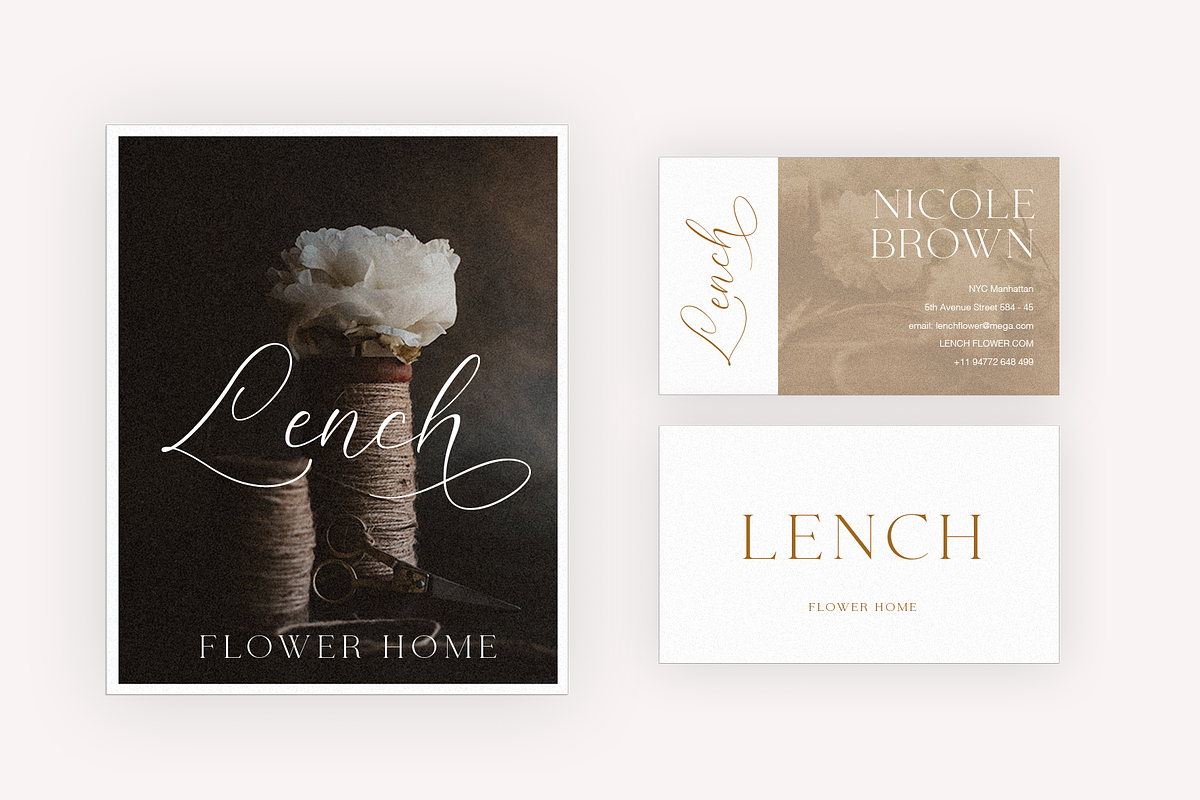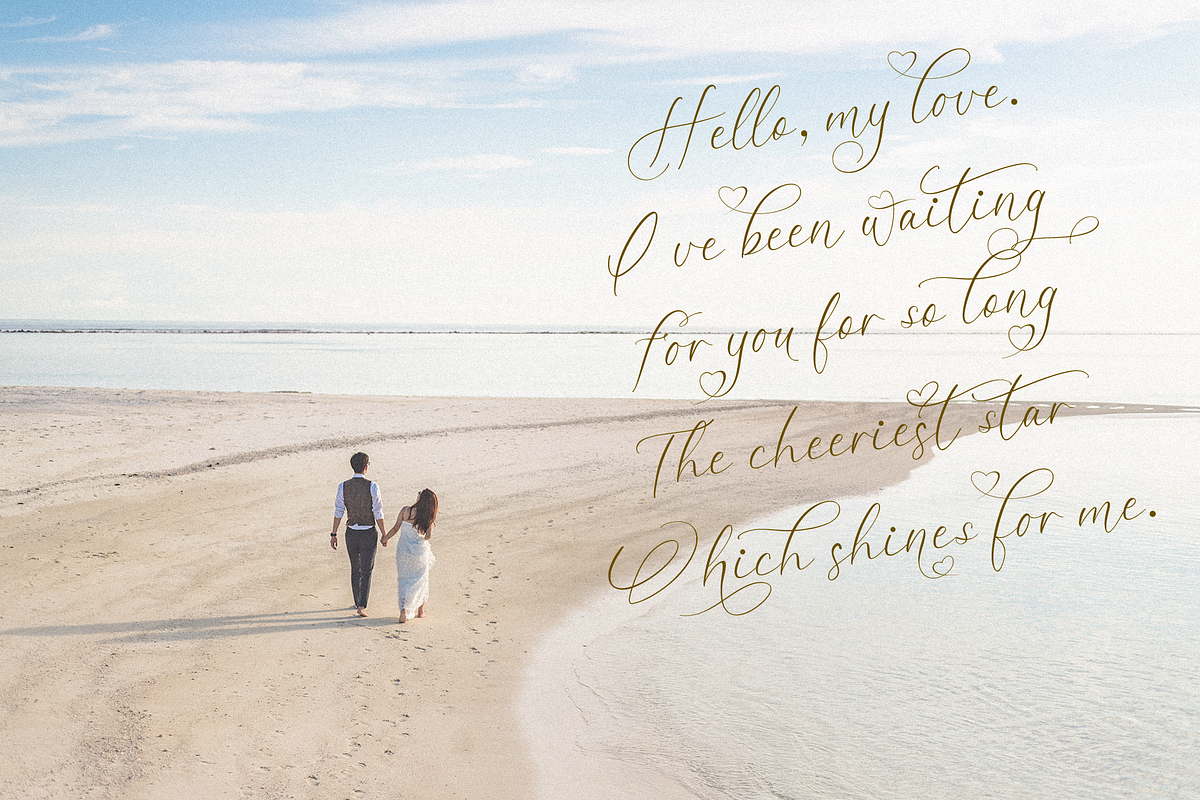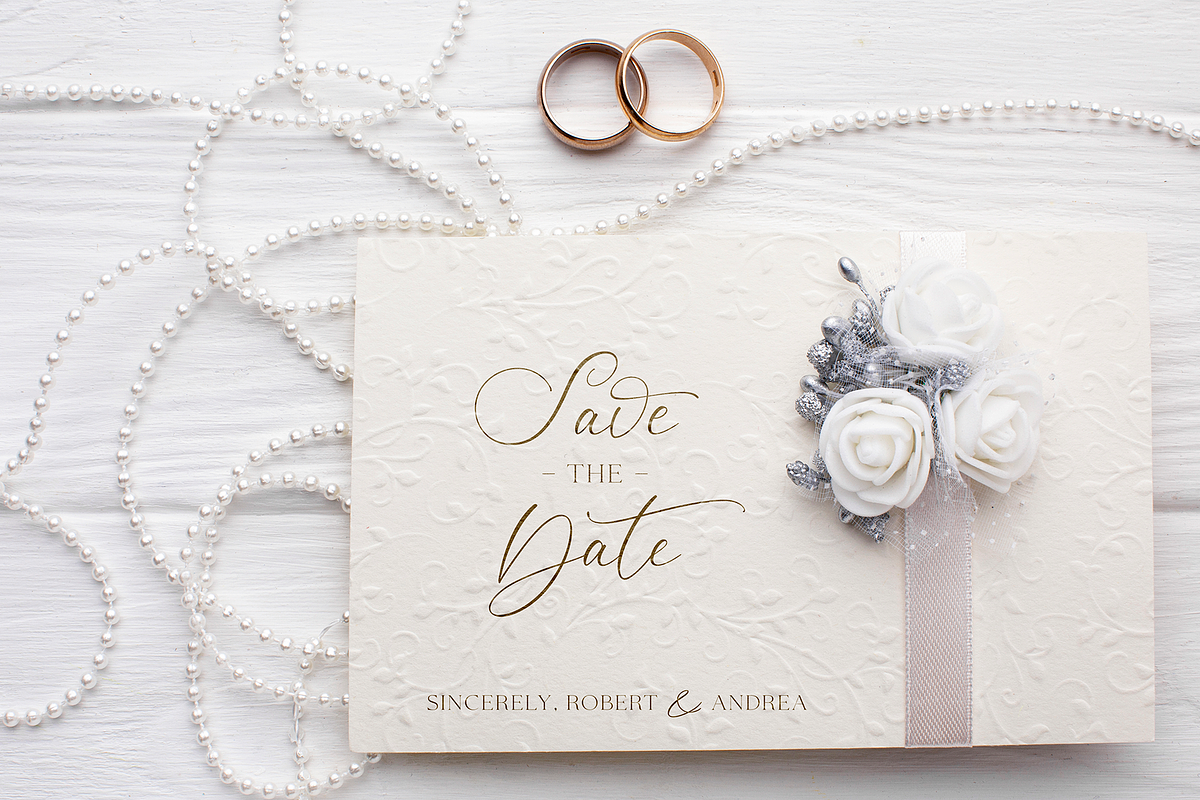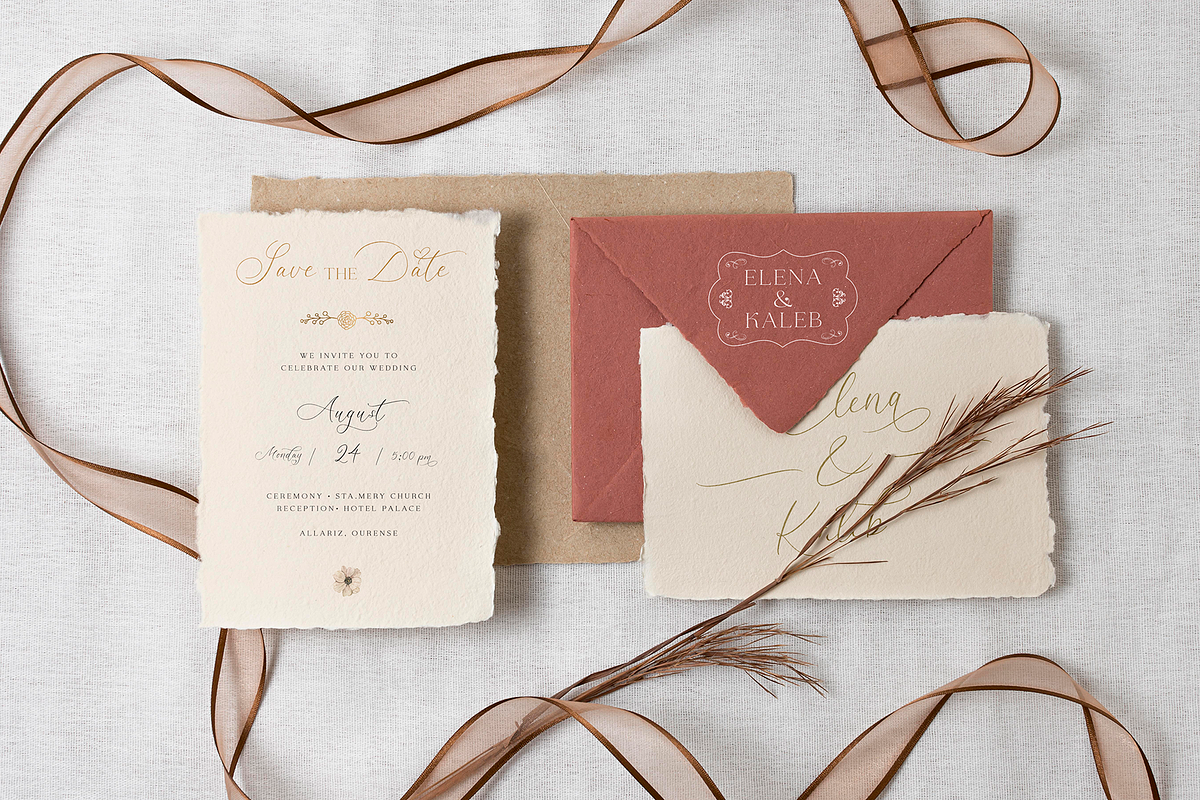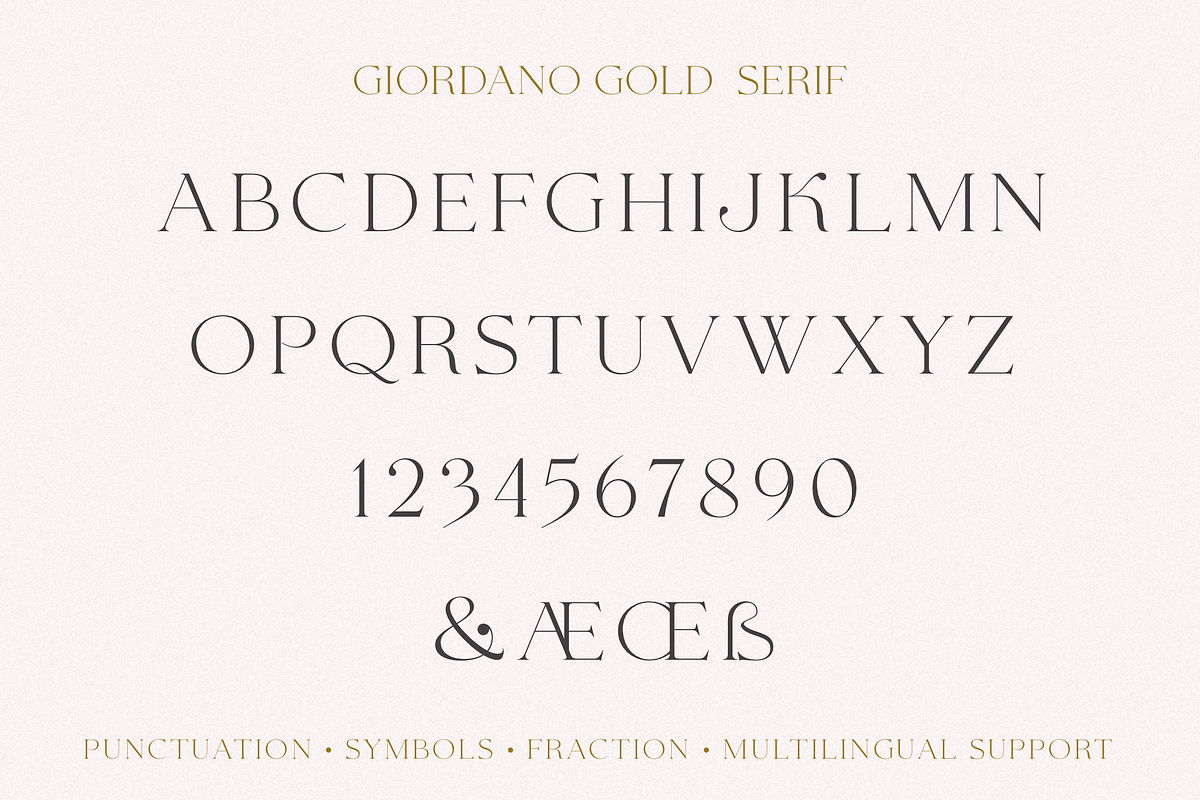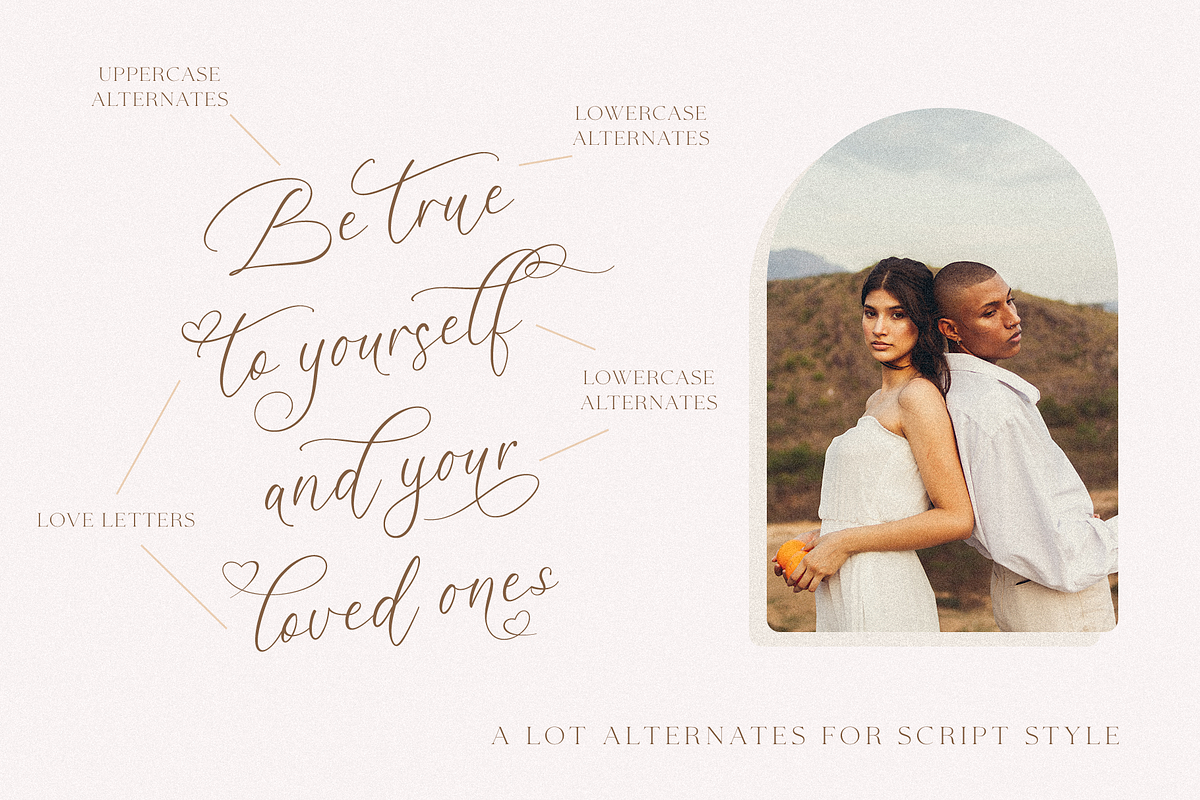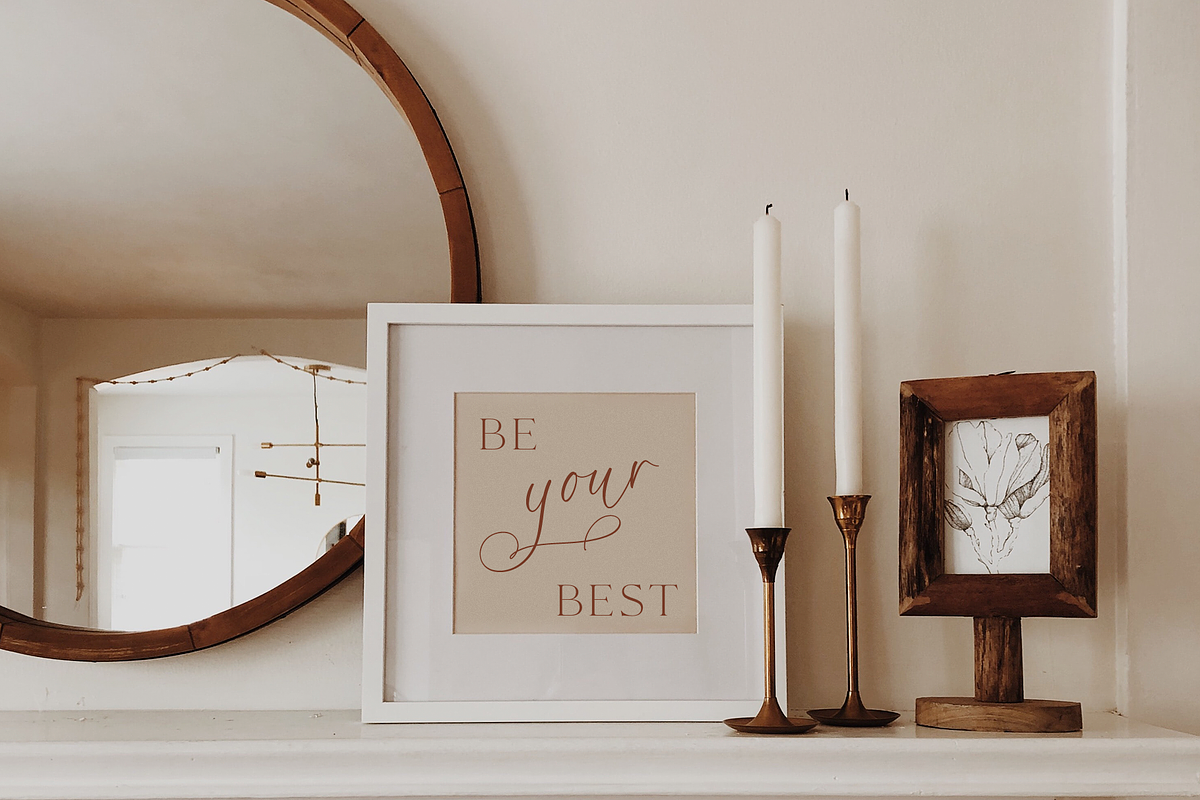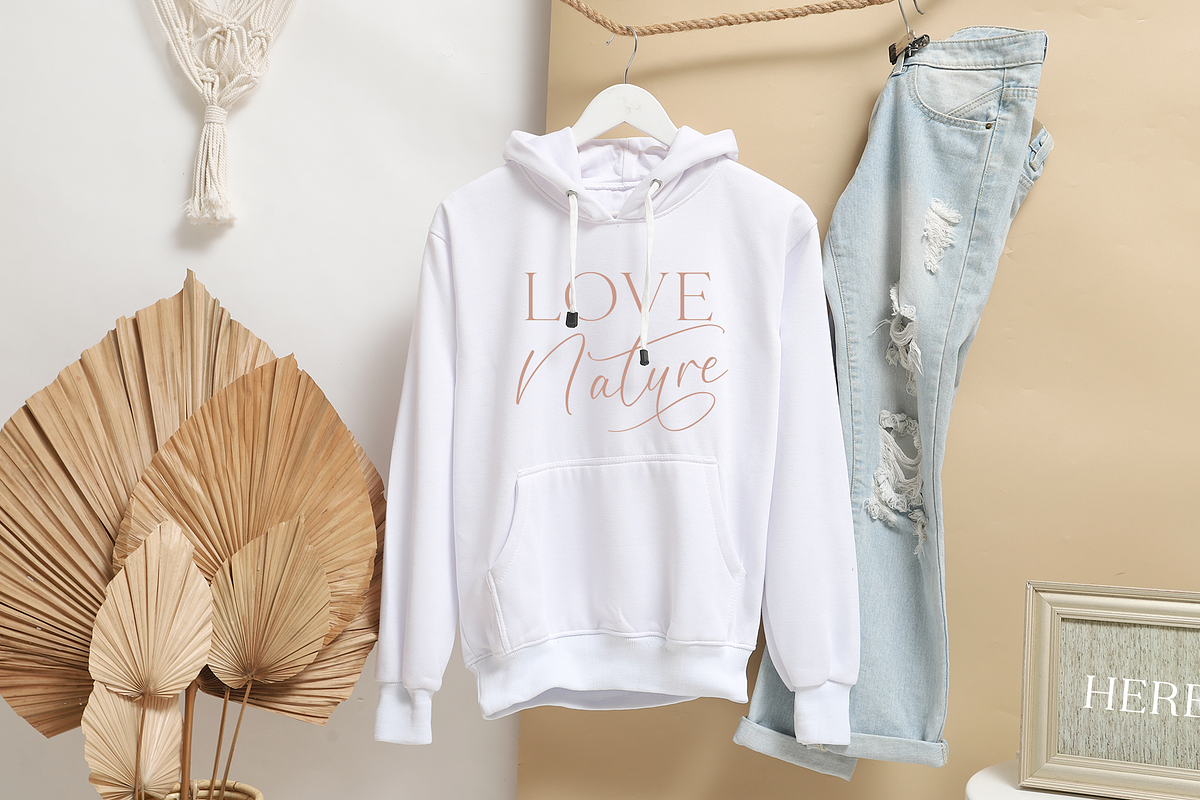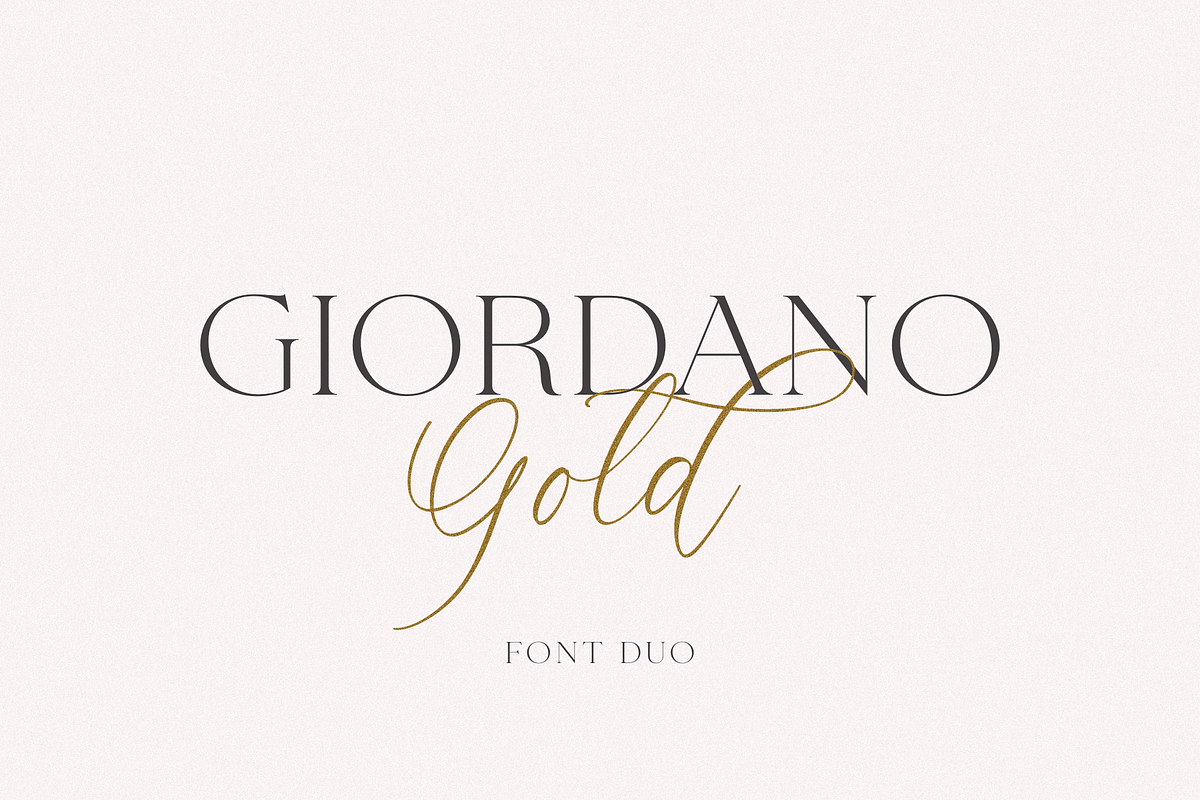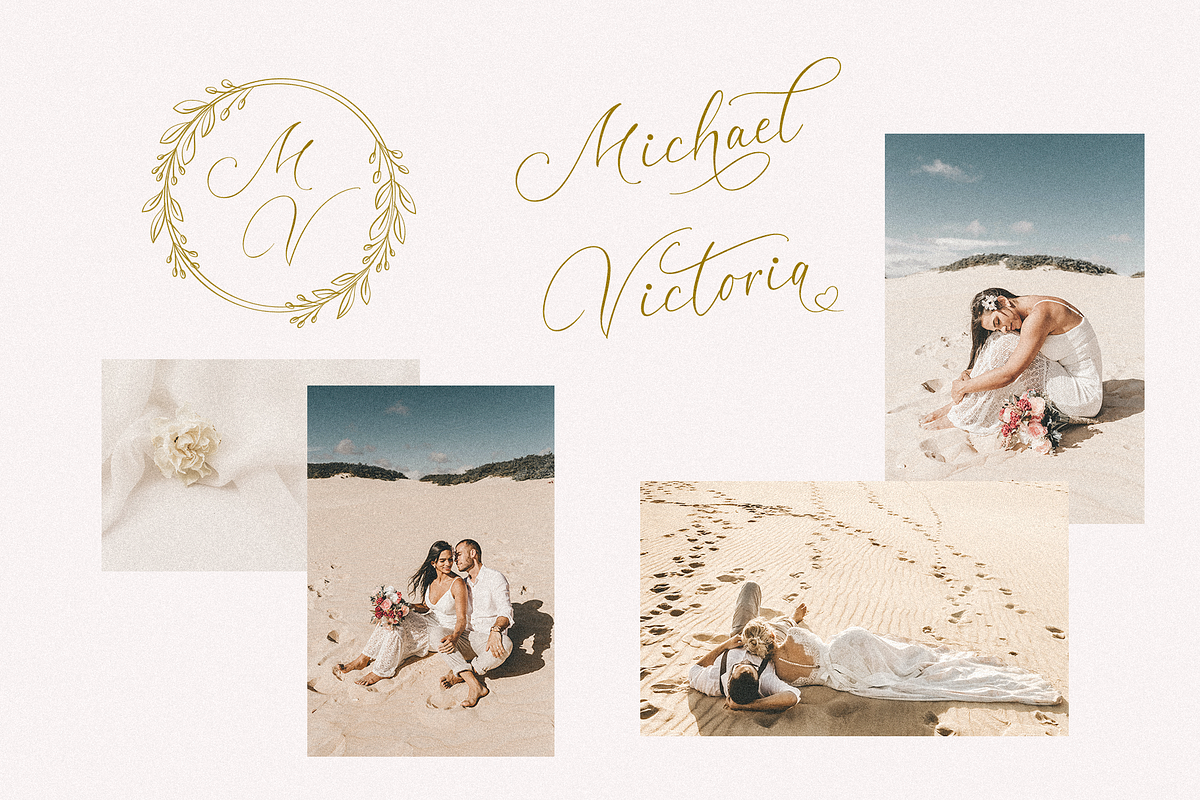
Giordano Gold
Giordano Gold this is a beautiful font duo that includes: script and serif font. Capital Serif is sophisticated and elegant, perfect for headlines, logos, branding, short display texts. The fine brush script includes many alternatives that make it more expressive and playful, it does not go into a dense and straight line, since it is made in the style of modern calligraphy and some tails of letters go above or below the line. Also included in the script are love letters that will perfectly complement wedding invitations, decorations holidays and much more.
These fonts are harmoniously combined with each other and perfectly complement each other. This fonts is easy to use and has OpenType features.
Following international symbols support: ÀÁÂÃÄÅĄÇĆÈÉÊËĘÌÍÎÏÐÑŃŁÒÓÔÕÖØÙÚÛÜŚŠŸÝŹŻŽßàáâãäåçèéêëìíîïðñòóôõöøùúûüýÿąćęłńśšźżž
Full alphabet with Capital letters A-Z for Serif font
Full alphabet with Uppercase and Lowercase A-z for Script font
Numbers, fractions for Serif and Script
Punctuation and symbols for Serif and Script
Alternates Uppercase and Lowercase for Script